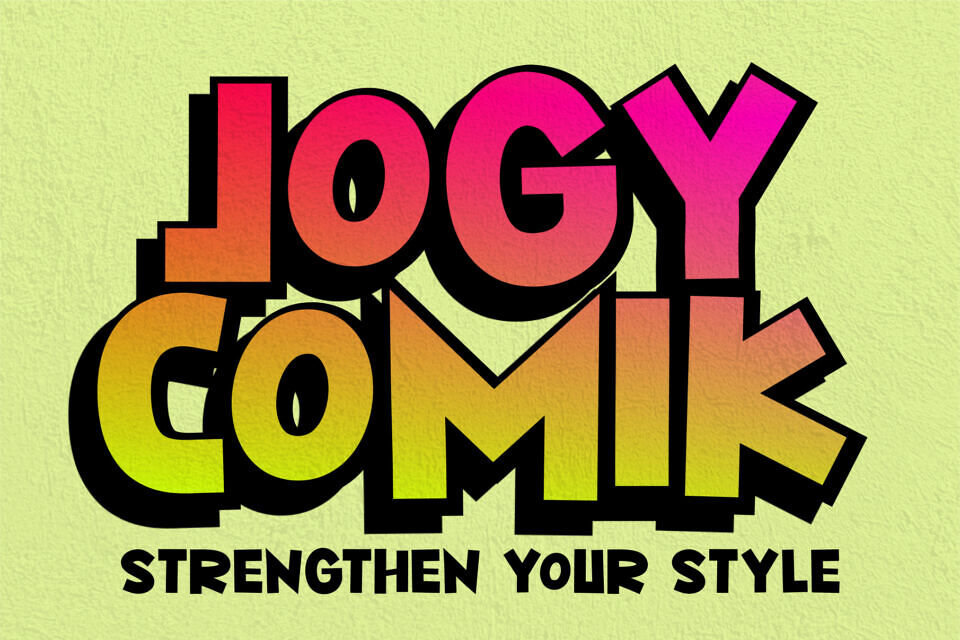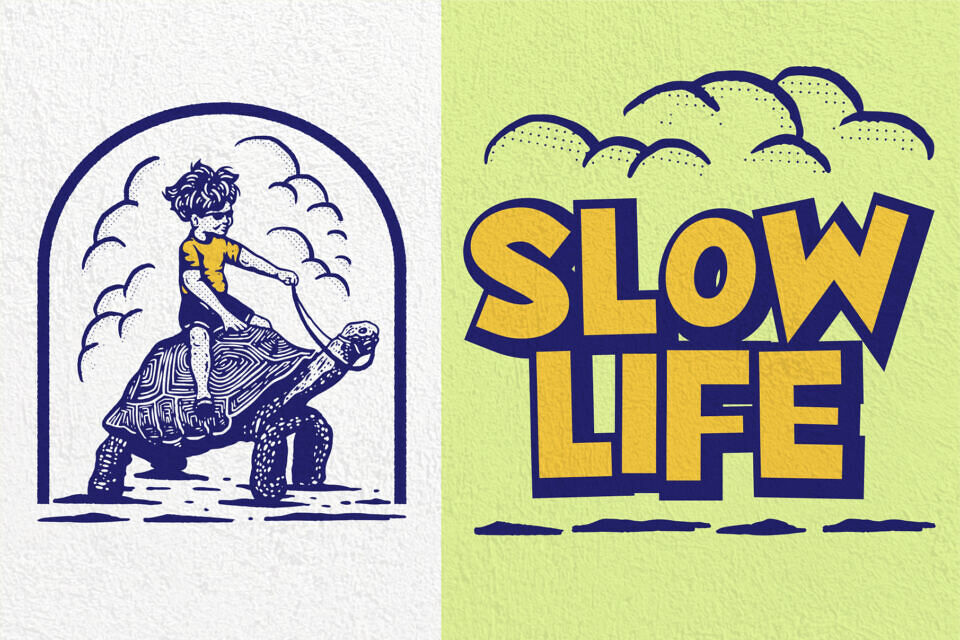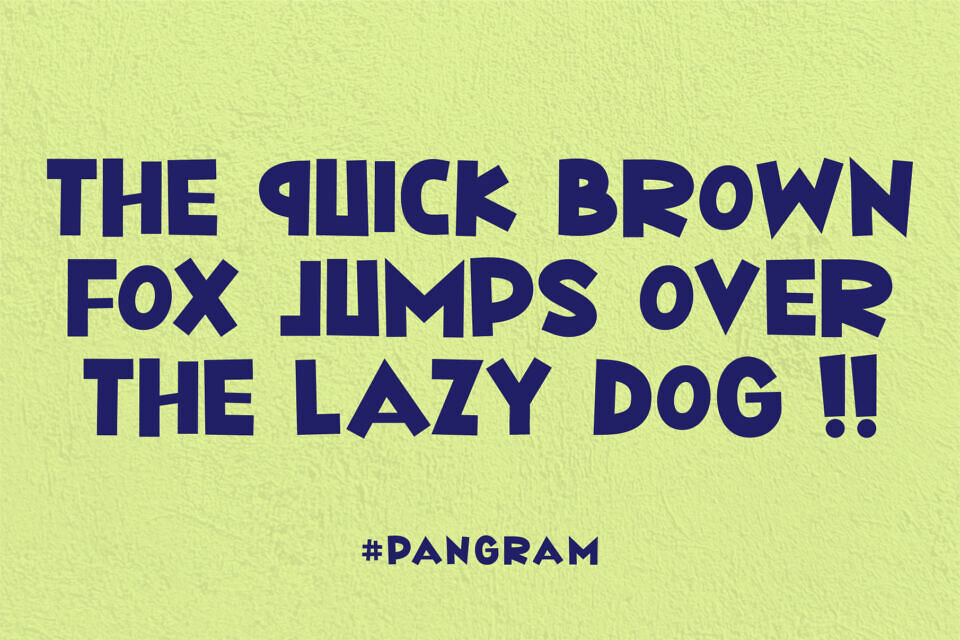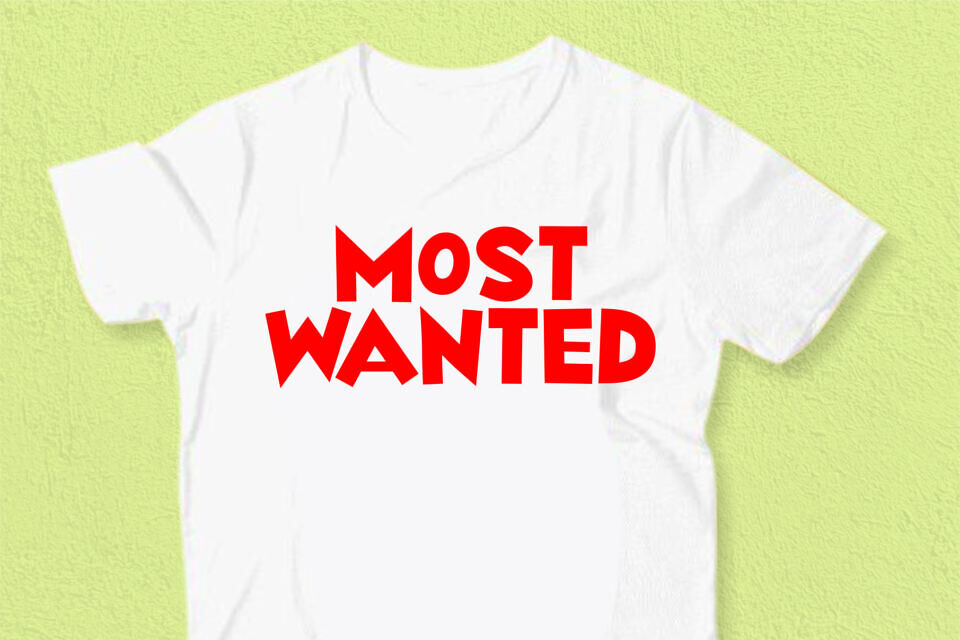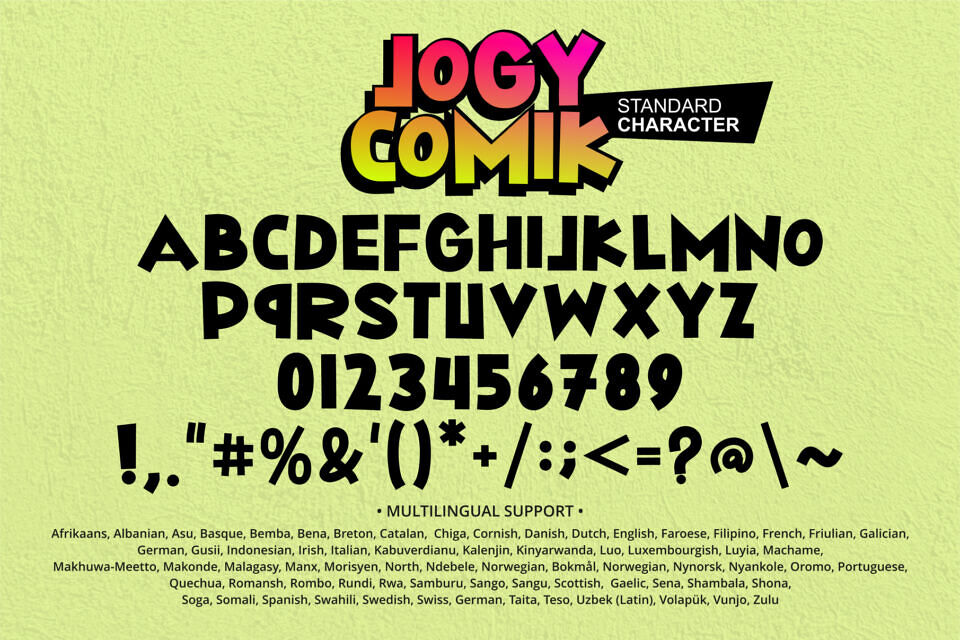
Jogy Comik Font
Bring your projects to life with our Font, a fun and playful typeface designed to add a touch of whimsy and creativity. Perfect for comic books, children’s books, posters, and any design that needs a lighthearted and informal feel.
Designed by: Mabhal Studio